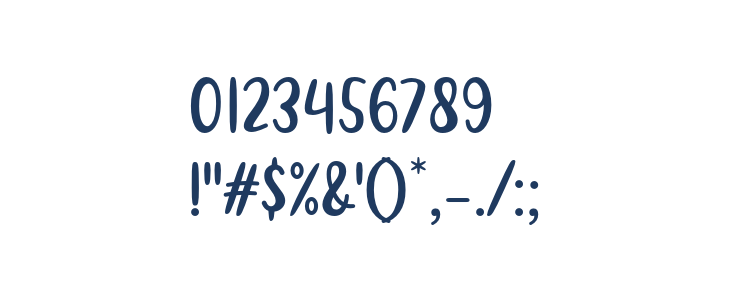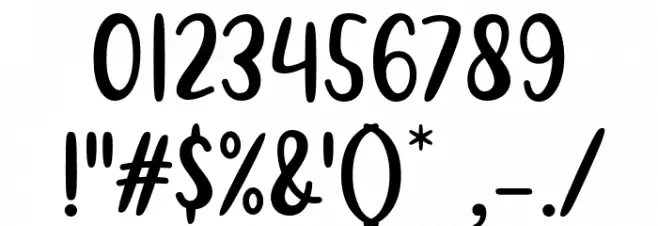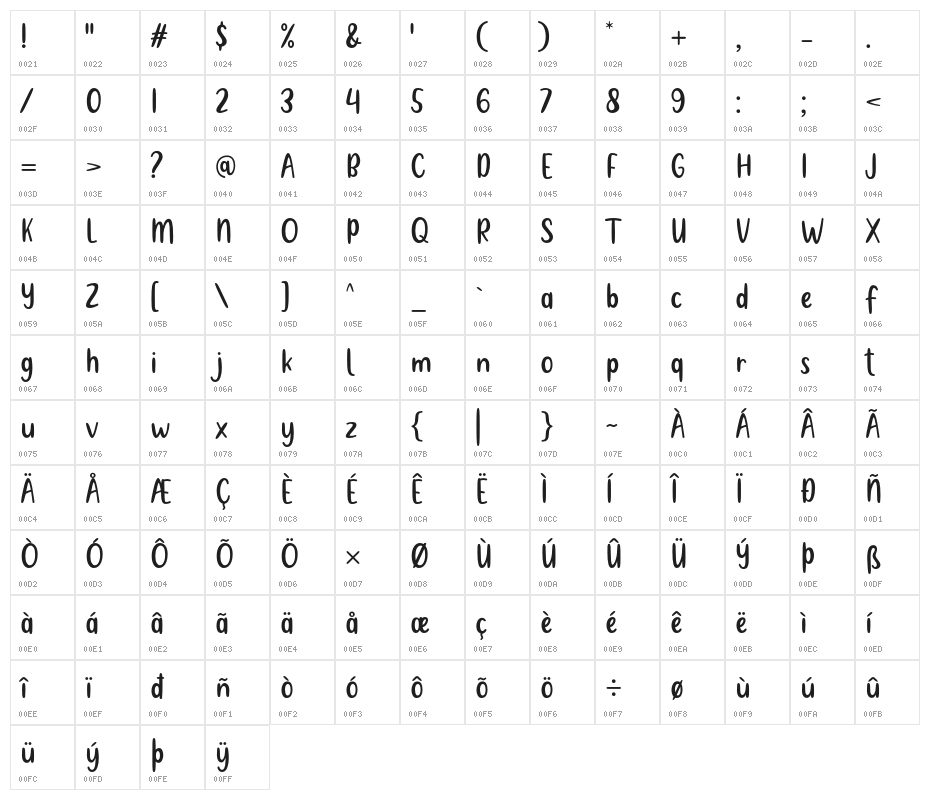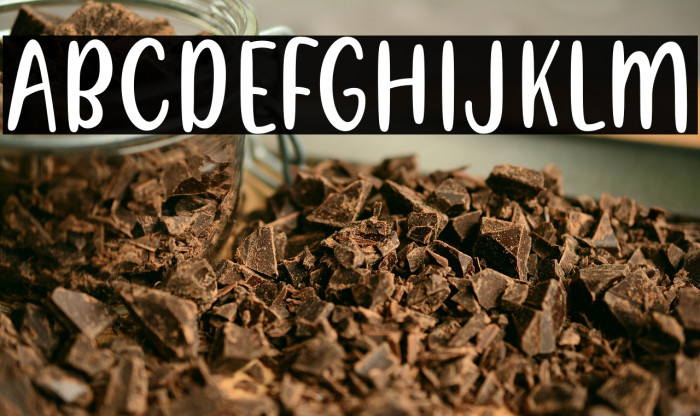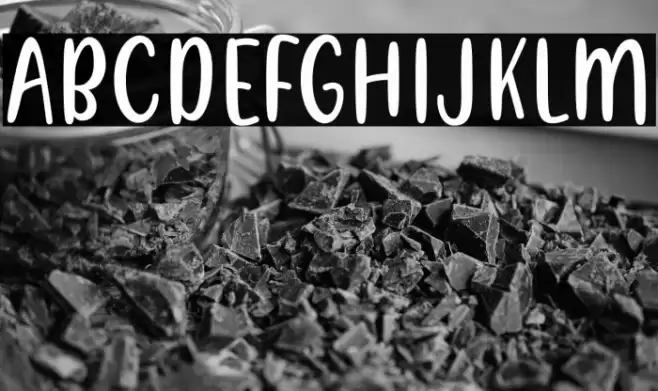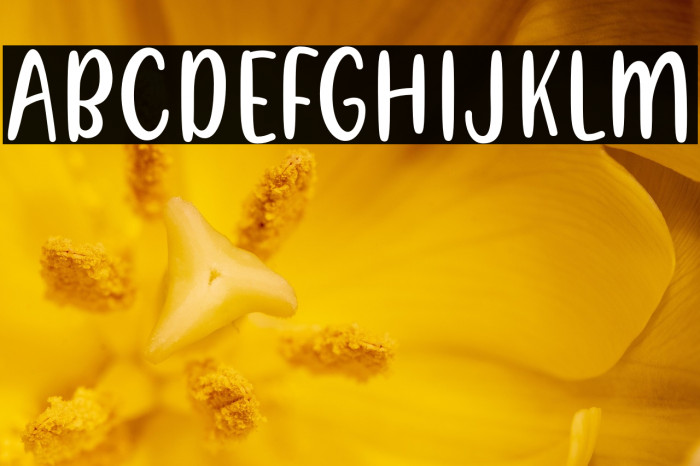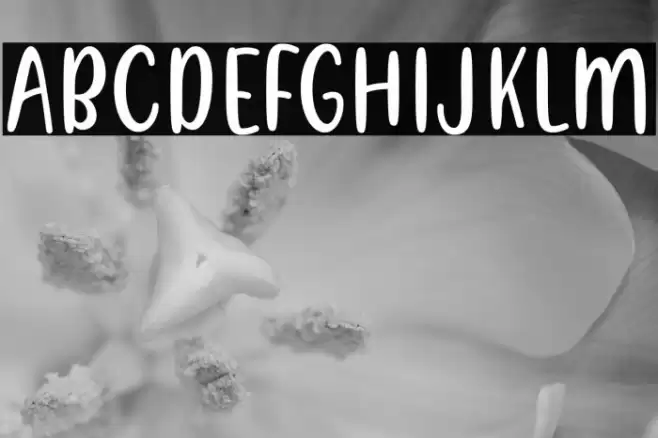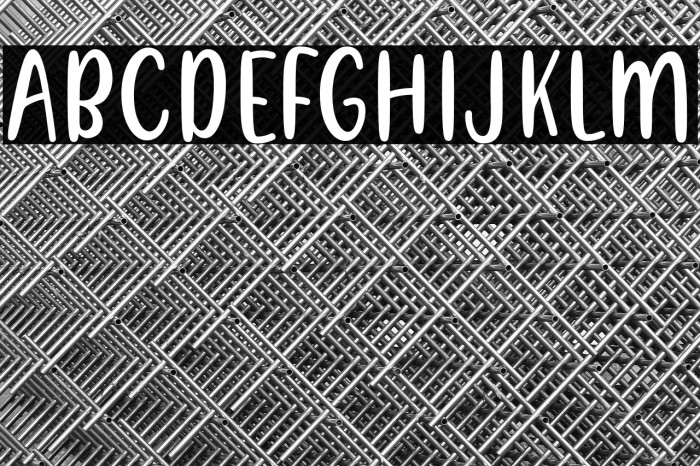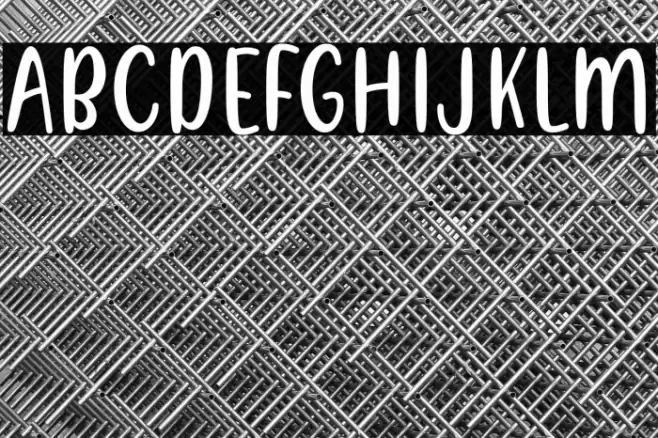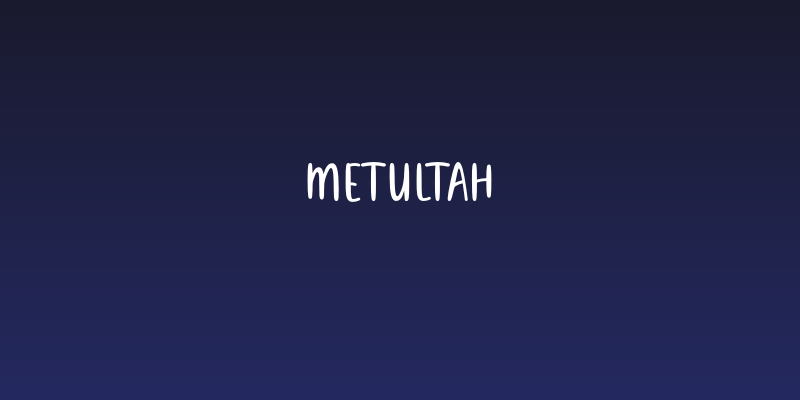
Metultah Font
Metultah Description
This playful and rounded font exudes a friendly and approachable vibe, making it perfect for casual and informal designs. The letters are bold and slightly elongated, with a consistent stroke width that adds to its readability. The font features a handwritten style, with smooth curves and a slight slant that gives it a dynamic and lively appearance. The numbers and special characters maintain the same playful aesthetic, ensuring a cohesive look across all text elements. This font is ideal for projects that require a personal touch, such as invitations, greeting cards, or children's book covers.
| Proposed Projects | Ideal for invitations, greeting cards, children's books, and playful branding. |